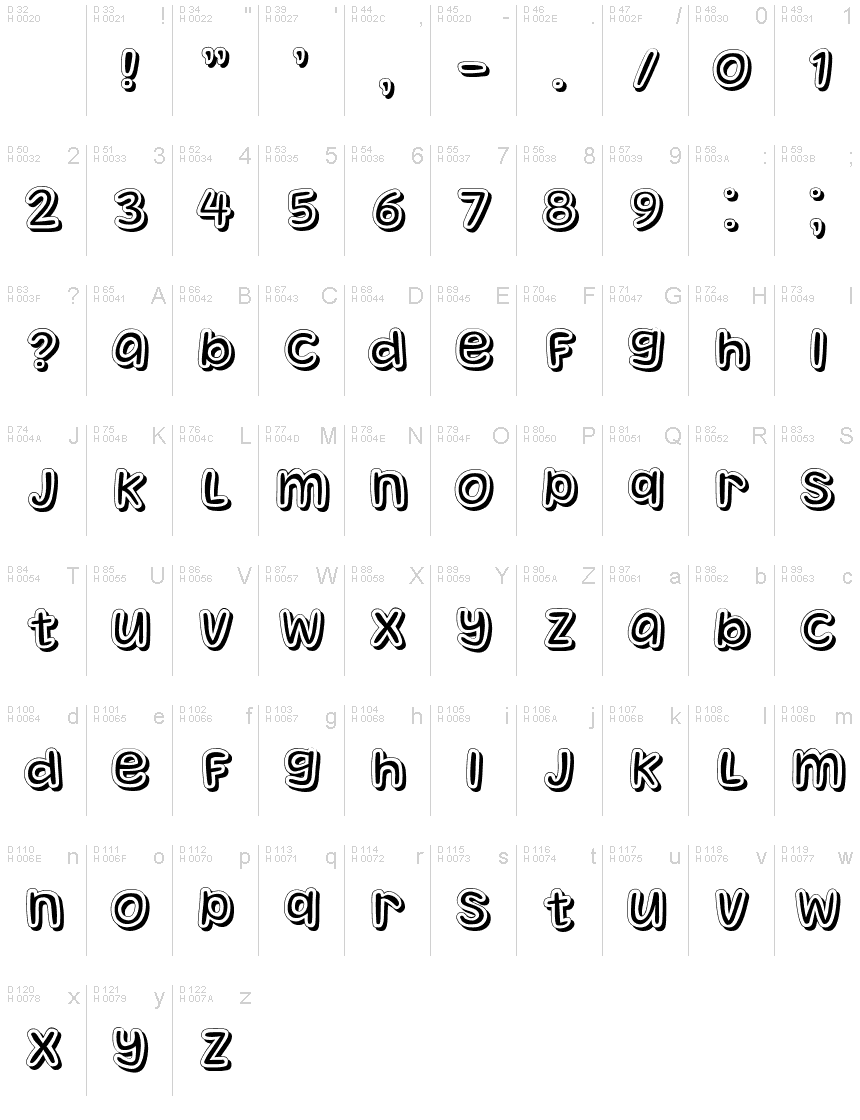
Takeover College Regular
Takeover College font is a cute comic typeface designed by Vladimir Nikolic.
"Takeover" comes in Regular, Shadow, School, School Hollow, and College variant!